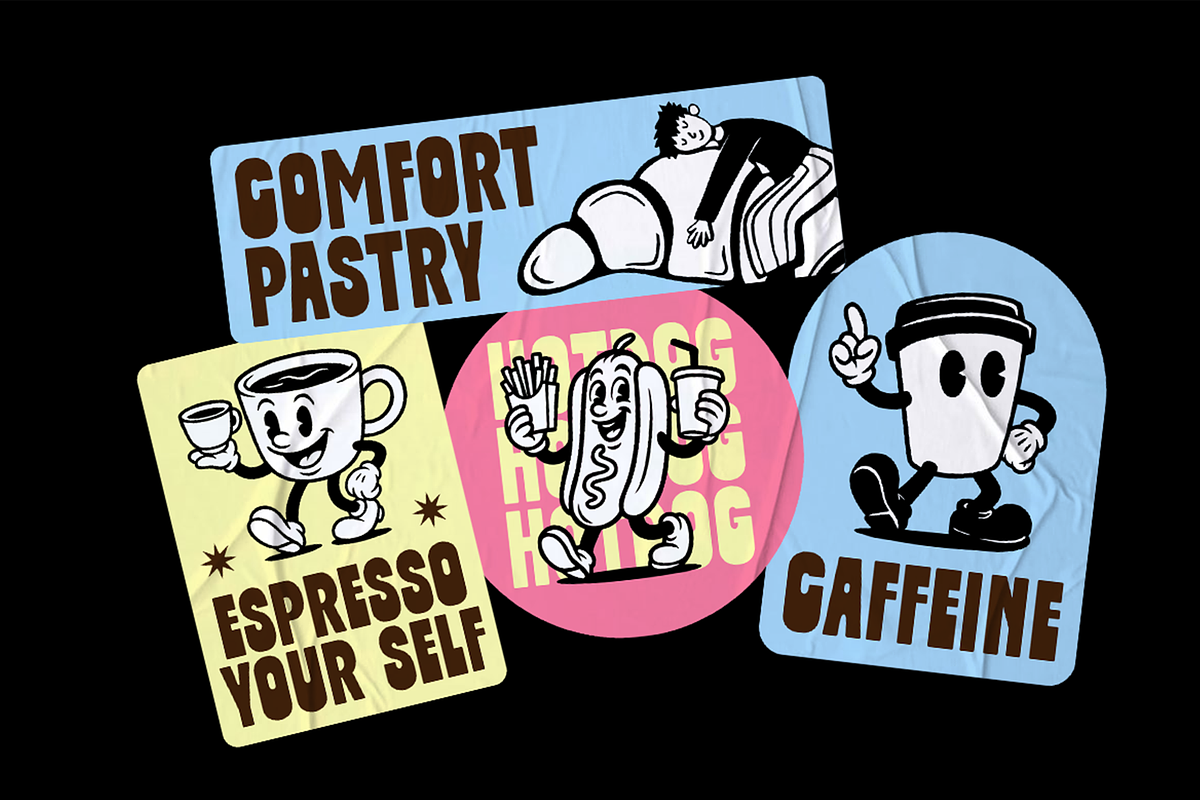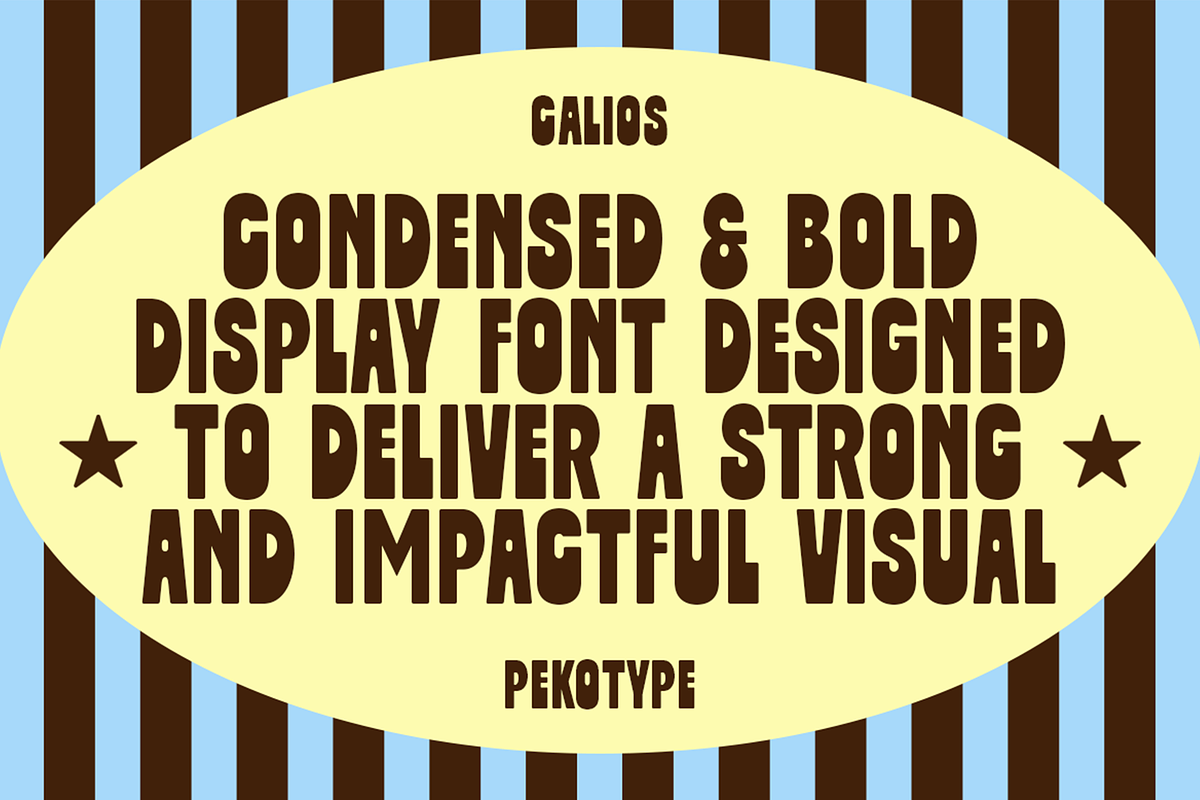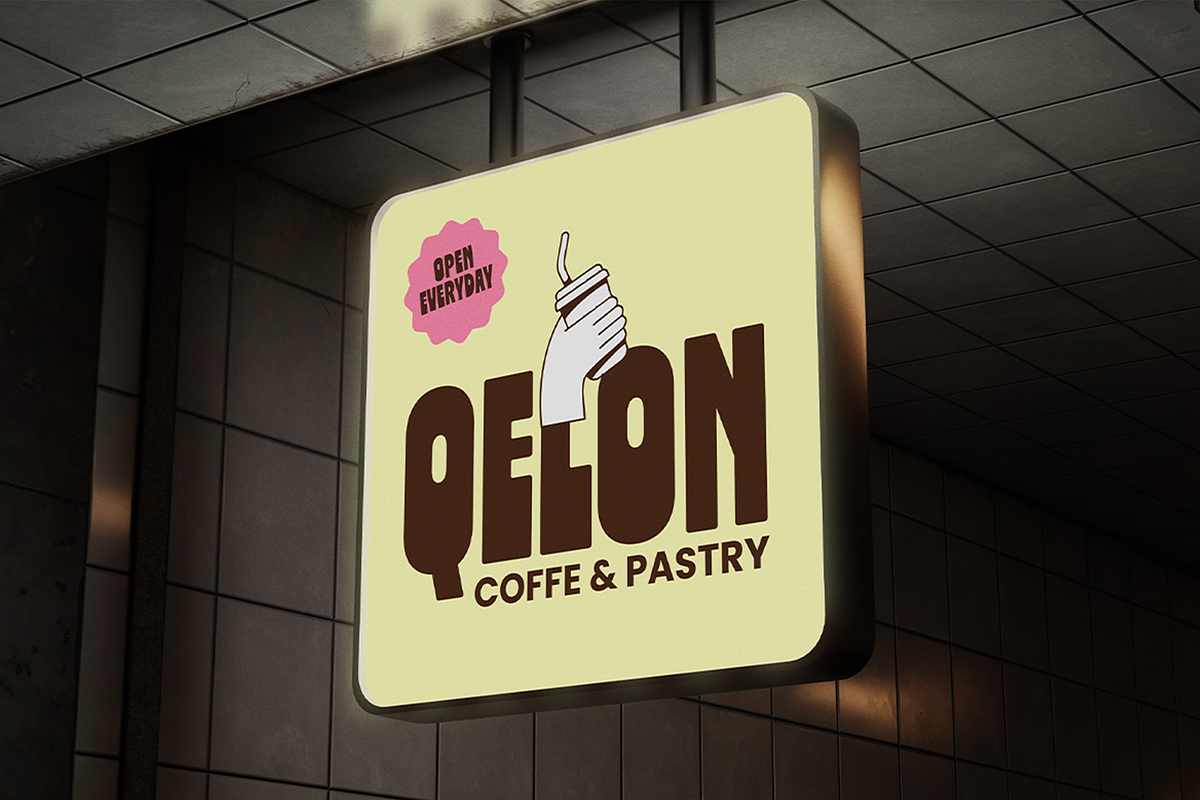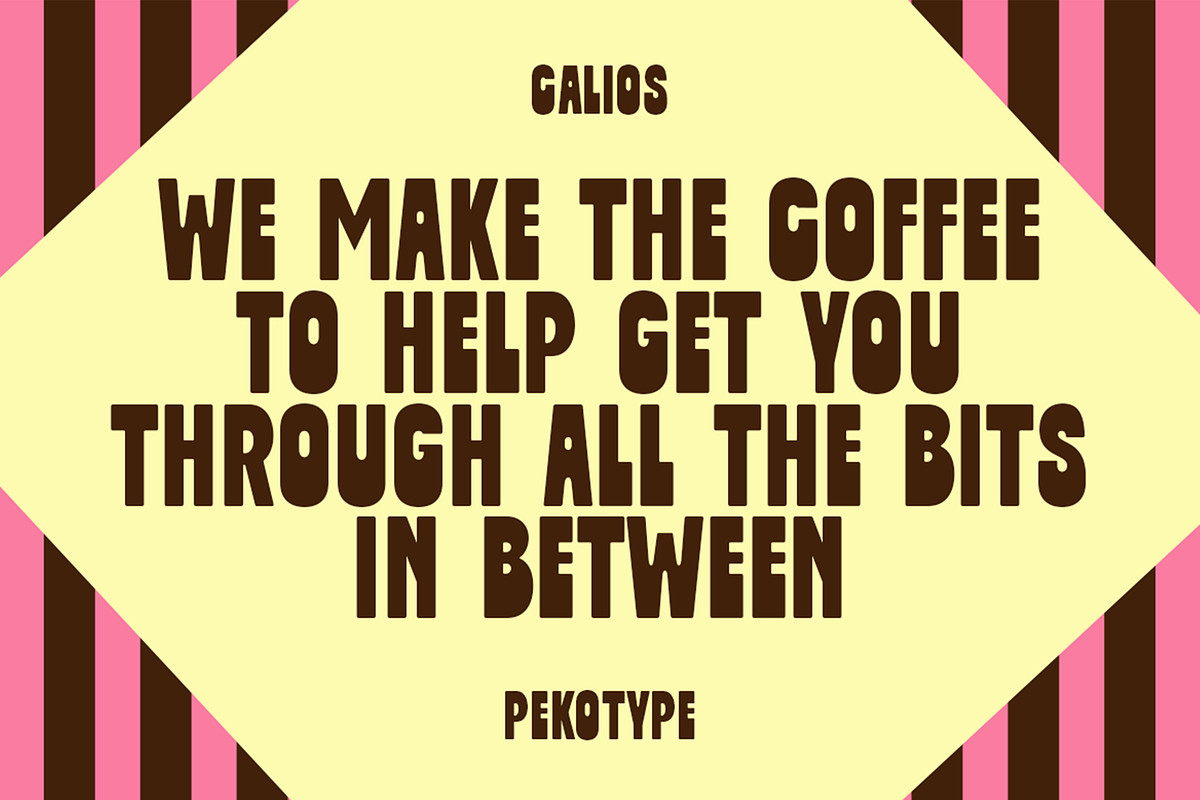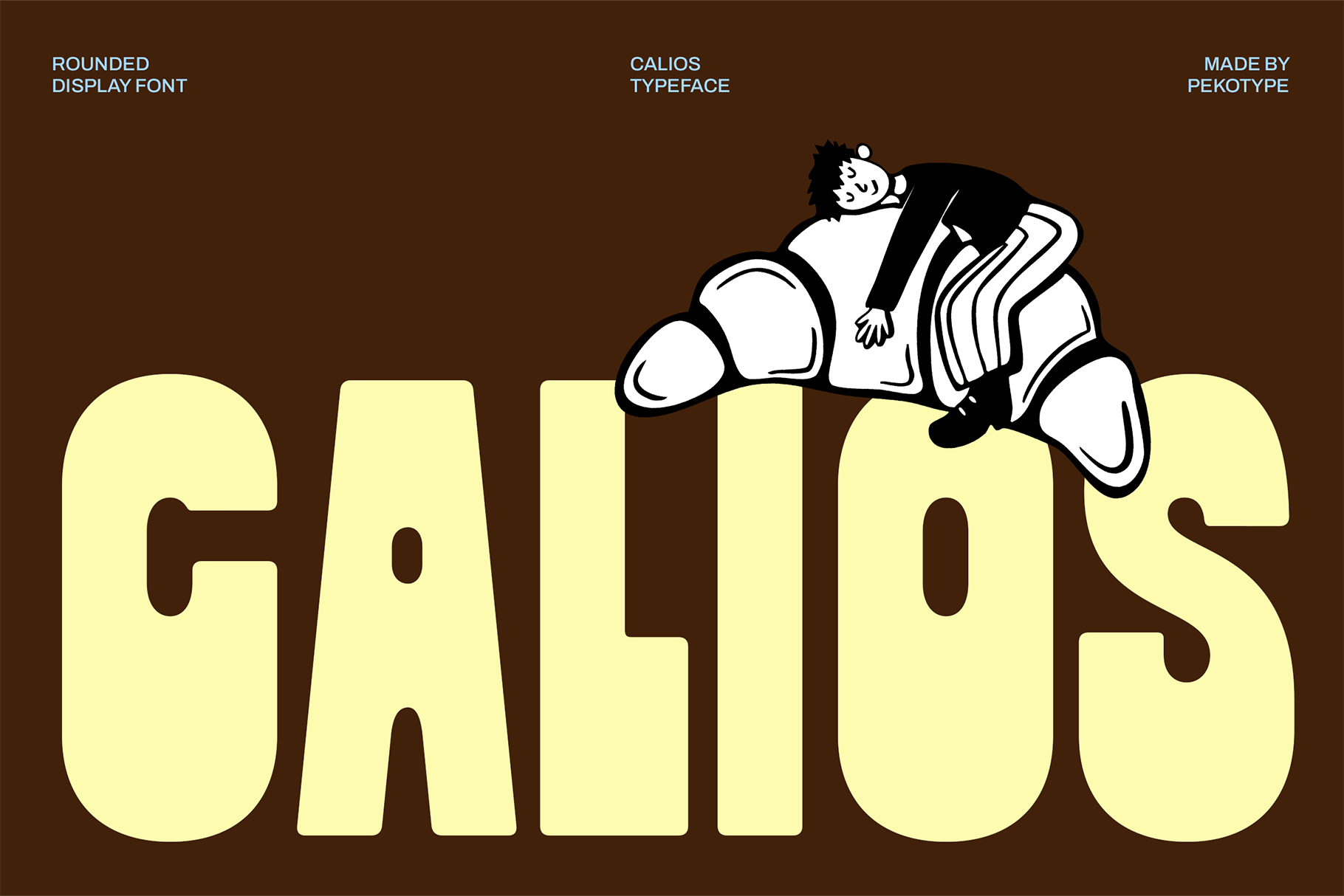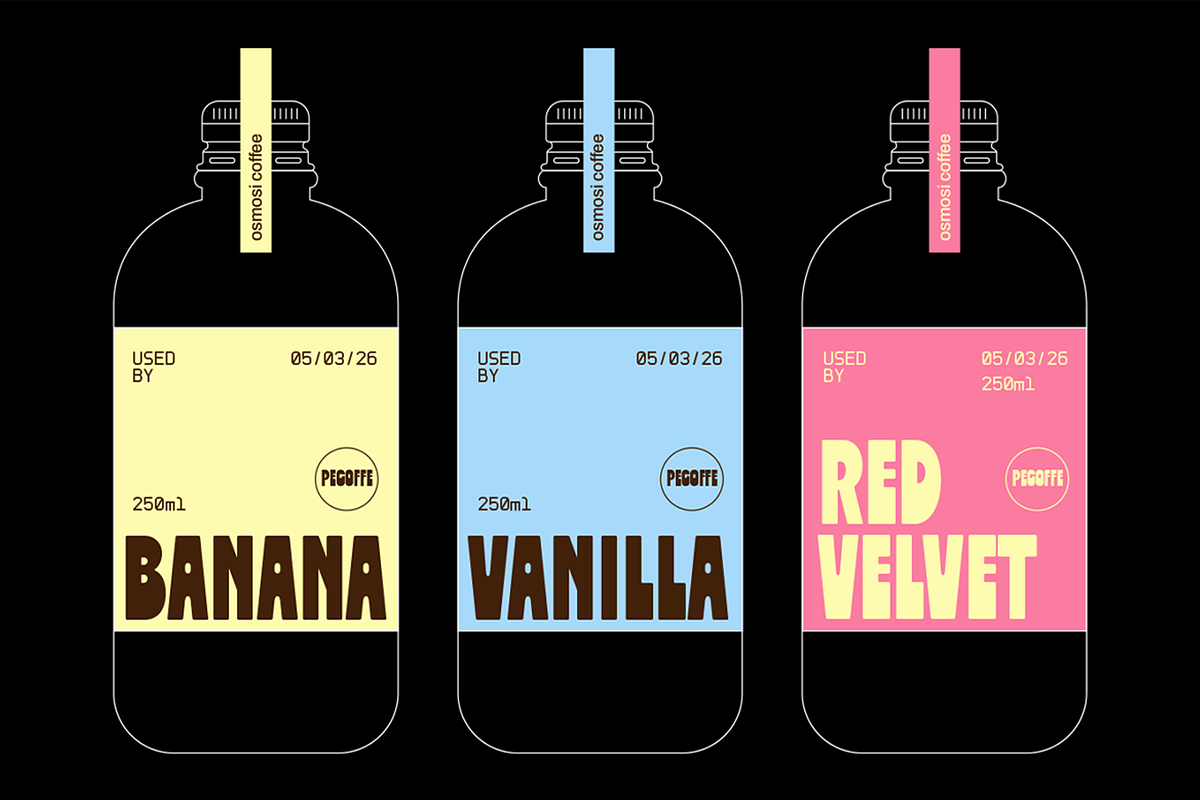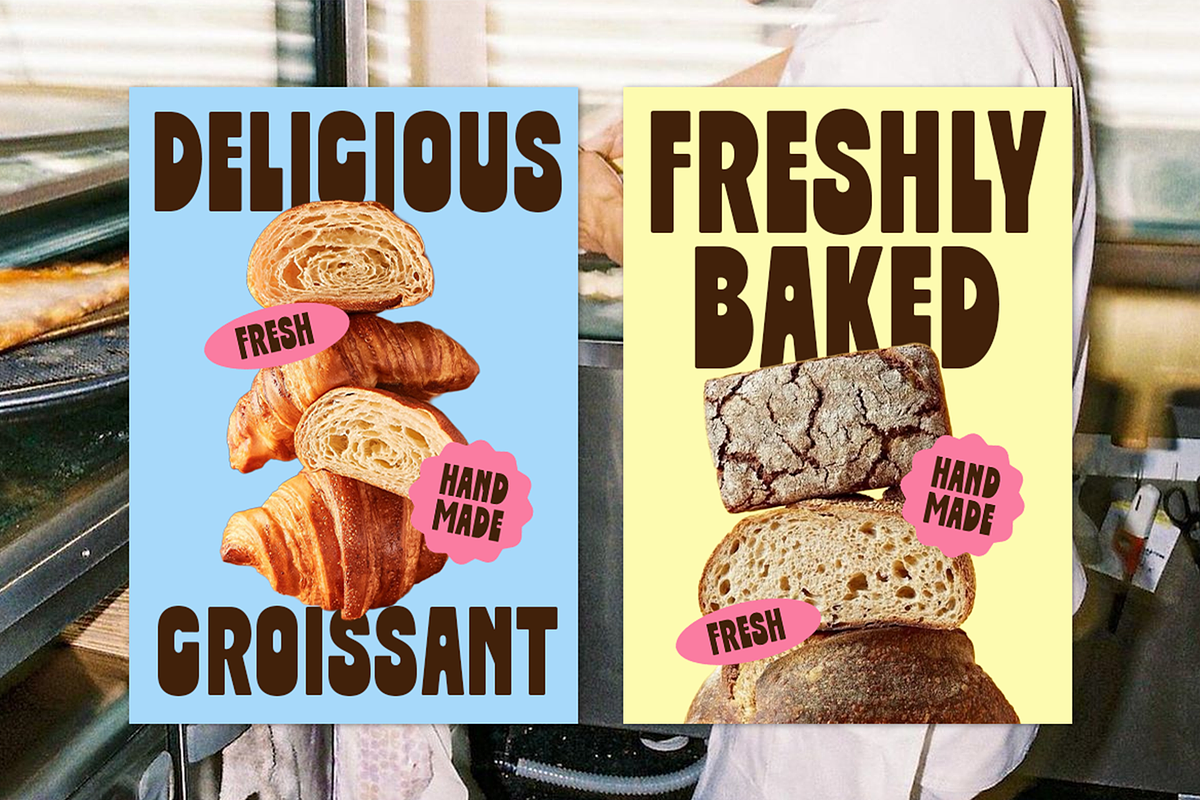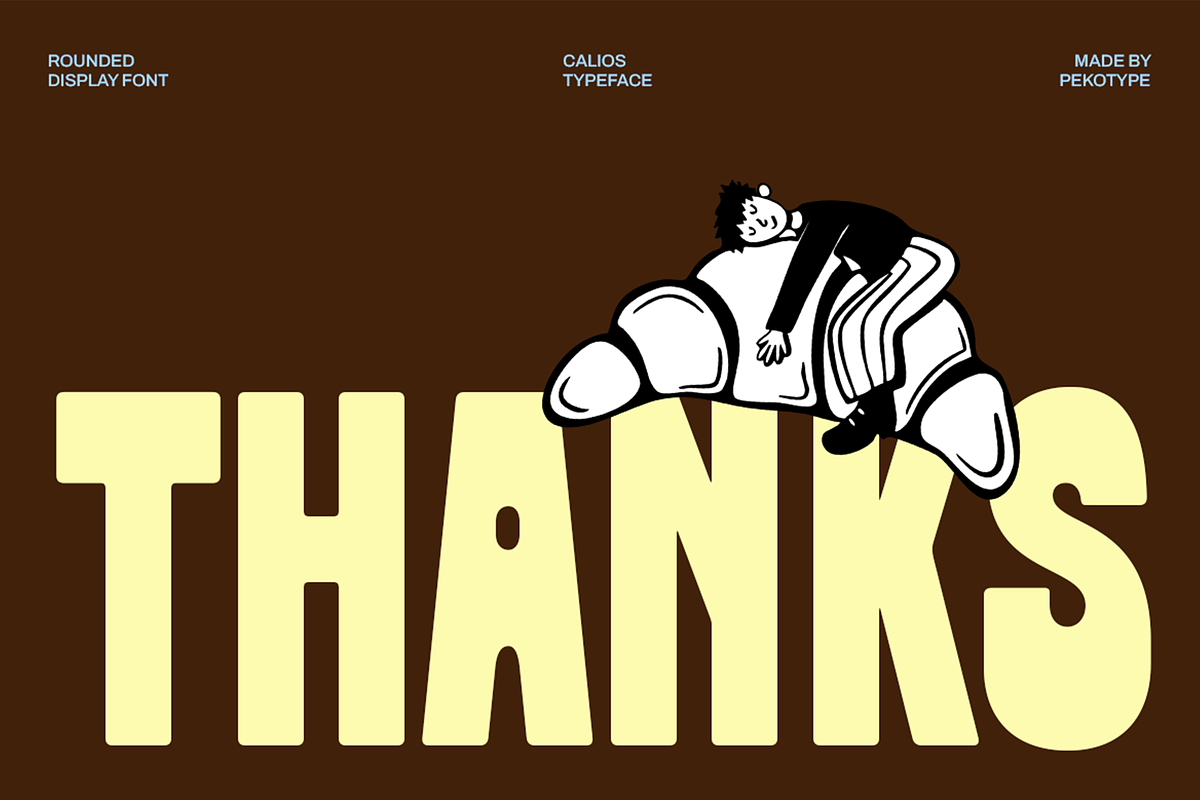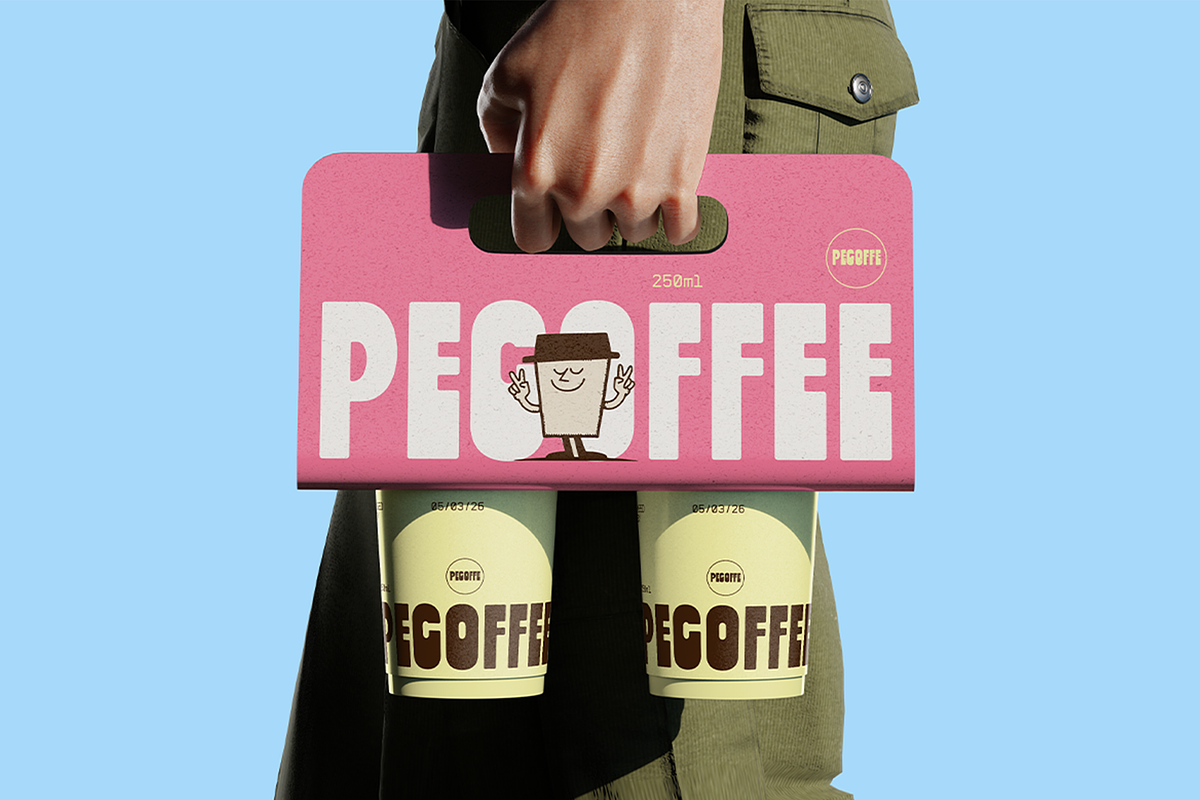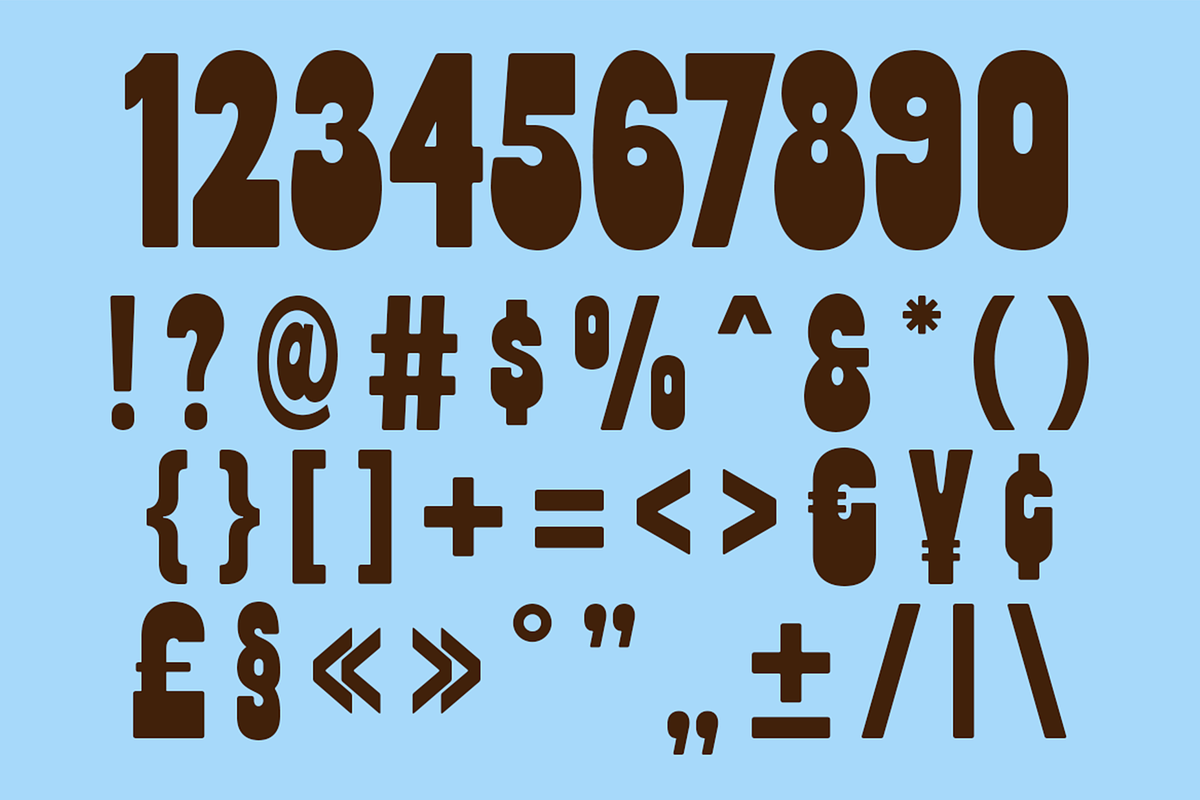
Calios - Bold Condensed Logo Font
CALIOS - Bold Condensed Logo Display Font is a condensed bold display font made to deliver a strong and eye-catching look. Its thick letterforms, tight spacing, and solid shapes create a powerful headline style that feels confident and impactful. The design has a warm vintage touch, inspired by classic bakery signs and retro packaging, but it still feels fresh and easy to use. CALIOS comes with uppercase letters, numbers, symbols, and multilingual support, so you can use it for a wide range of creative projects.
This font works perfectly for café and bakery branding, coffee shop logos, food packaging, pastry labels, menu boards, posters, stickers, and promotional graphics. It’s great for product labels like bottles, coffee cups, bread packaging, and storefront signage. If you want a bold condensed display font that makes your food or retail design stand out and feel strong, tasty, and memorable, CALIOS is ready to support your brand.
- All Caps
- Number, Symbol, & Punctuation